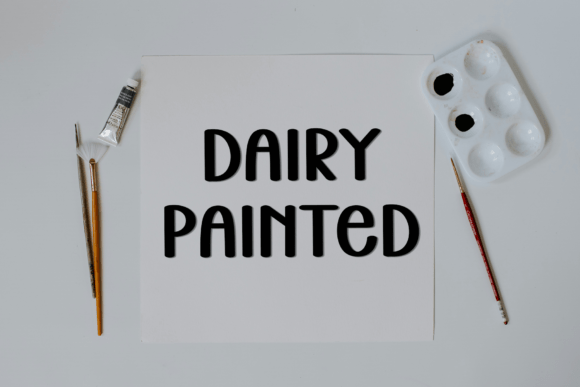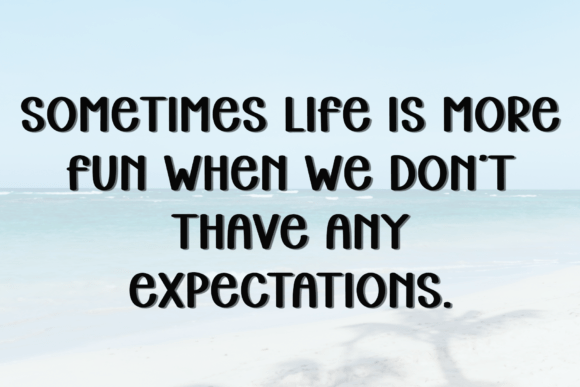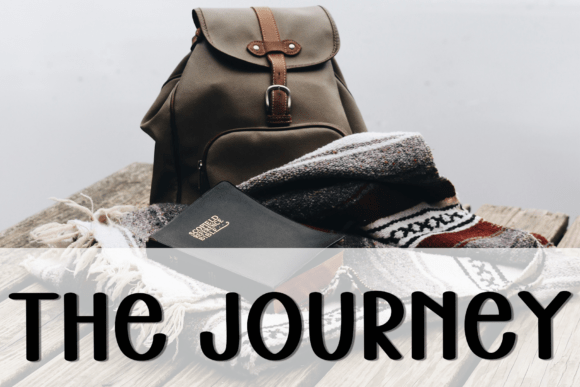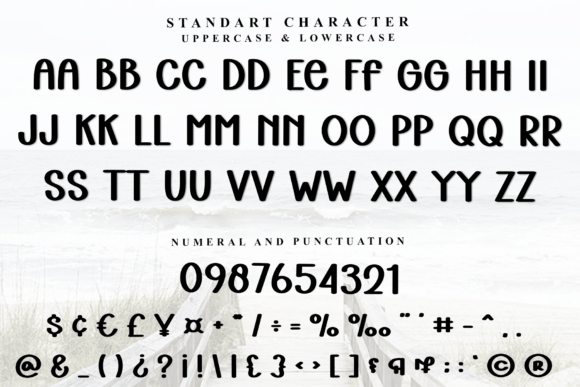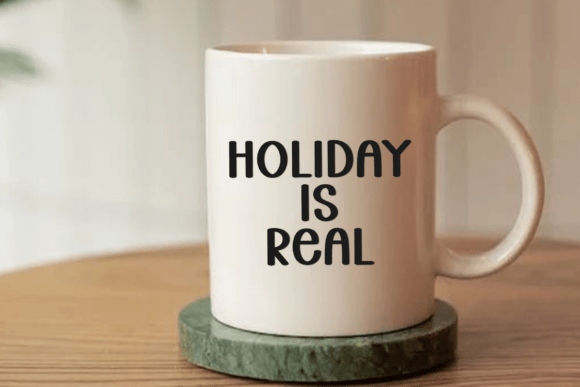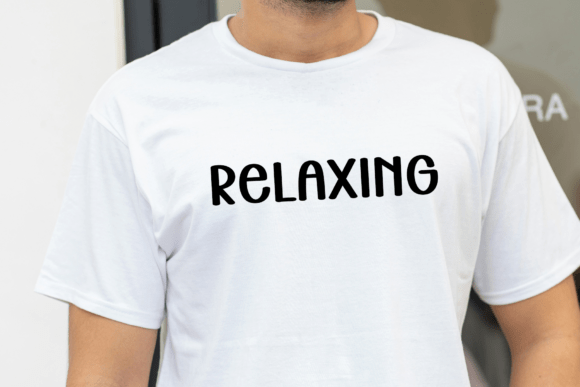
The Brownie Font: A Game-Changer for Designers and Crafters
I’ll never forget the time I was working on a design project, and I just couldn’t find the right font. My client wanted something unique, something that would make their brand stand out. I spent hours scouring the internet, trying out different fonts, but nothing seemed quite right. That was until I stumbled upon the Brownie font. ✨
With its soft, unique touch and distinctive strokes, the Brownie font was exactly what I needed. It’s a beautiful and eye-catching font that’s perfect for design projects, crafts, and other creative works. In this article, I’ll share my honest review of the Brownie font, provide a practical guide on how to use it, and explore some similar fonts and alternatives.
An Honest Review of the Brownie Font
- ✨ Unique and eye-catching design: The Brownie font has a distinctive touch that sets it apart from other fonts.
- ✅ Versatile: The font is perfect for a wide range of design projects, from crafts to branding.
- 🌈 Variety of characters: The Brownie font comes with a range of characters, making it ideal for creative works.
While the Brownie font is amazing, there are a few things to keep in mind: 🤔
- ⚠️ Limited use in formal designs: The Brownie font is best suited for creative projects and may not be suitable for formal designs.
The Designer Inspiration Behind the Brownie Font
The Brownie font was designed with the intention of creating a unique and eye-catching font that’s perfect for creative projects. The designer wanted to create a font that’s both beautiful and versatile, with a soft touch that’s reminiscent of hand-drawn designs.
Q: What is the Brownie font best suited for?
A: The Brownie font is perfect for design projects, crafts, and other creative works that require a unique and eye-catching font.